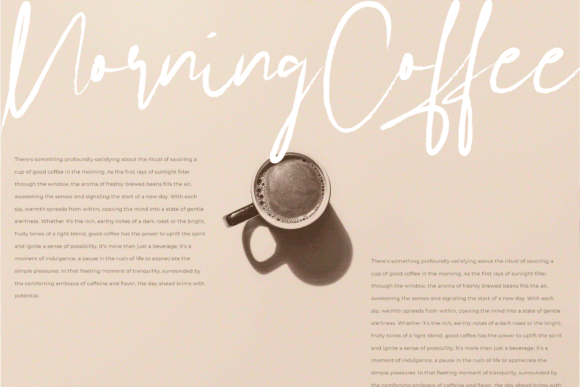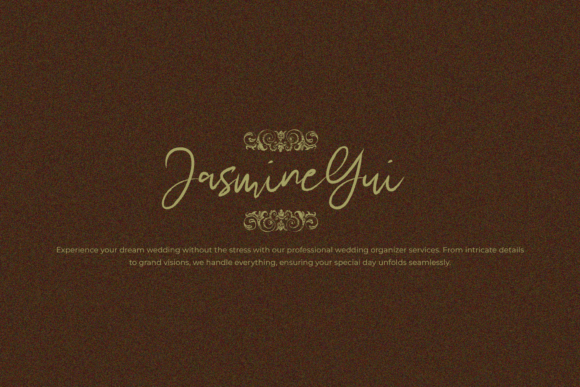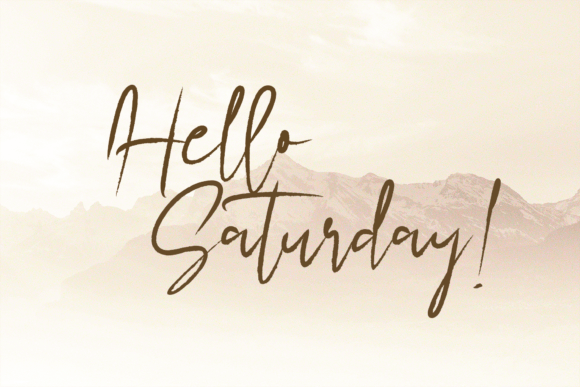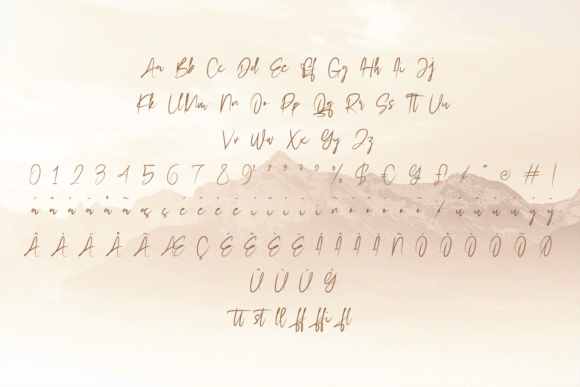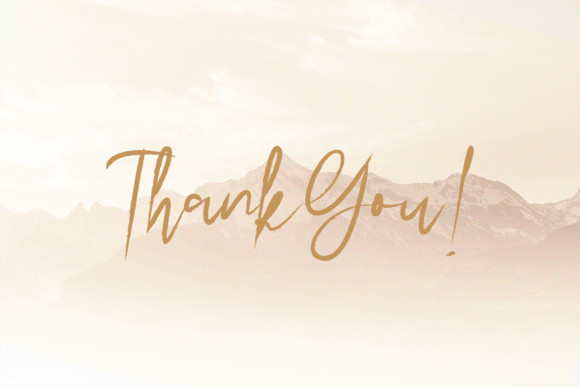
Unveiling the Elegance of Kalmoste Font
Imagine yourself brainstorming ideas for a creative project, the cursor blinking impatiently on your screen as you struggle to find the perfect font to match your vision. But then, it happens – you stumble upon Kalmoste Font, and everything changes. This unique brush signature script font is more than just a design element; it’s a game-changer that elevates your work to new heights.
What sets Kalmoste Font apart is its ability to seamlessly blend modernity with sophistication, creating a high-quality visual experience that’s hard to resist. Whether you’re working on a design project or simply looking for a stylish addition to your digital library, Kalmoste Font is a valuable resource that’s sure to spark creativity and inspire your next big idea.
Key Features of Kalmoste Font
- High-quality design for creative projects with a unique, modern aesthetic.
- Transparent background, making it ideal for use on a variety of design resources and backgrounds.
- Designed to be versatile, suitable for use in a range of creative projects, from digital art to print materials.
Honest Review: Kalmoste Font
I recently stumbled upon the Kalmoste Font, and I’m excited to share my thoughts on this design resource. As a designer, I’m always on the lookout for high-quality fonts that can elevate my creative projects.
One of the standout features of the Kalmoste Font is its sleek, modern design. The font’s clean lines and minimalistic style make it perfect for a variety of creative projects, from logos to brochures.
- ✨ High-quality design that’s perfect for modern projects
- ✨ Transparent background, making it easy to use with any design
- ⚠️ Limited character set, which may not be suitable for all projects
- ⚠️ Not as versatile as some other fonts on the market
Overall, I’m impressed with the Kalmoste Font. While it may not be perfect, it’s a solid design resource that can add a touch of sophistication to your creative projects. I’d definitely recommend it for designers looking for a modern, high-quality font.
Getting the Most Out of Kalmoste Font
For a high-quality design, use the Kalmoste Font with a transparent background to create a unique and creative project. This versatile font can be used in various design resources, making it a great addition to your collection. You can download it for free to get started on your next design project.
The Kalmoste Font is ideal for use in creative projects such as graphic design, digital art, and typography. Its high-quality design and transparent background make it a great choice for designers looking for a unique and stylish font.
Alternatives to Kalmoste Font
The Great Vibes Font is a high-quality, elegant script font perfect for creative projects that require a touch of sophistication. Its transparent background and delicate lines make it ideal for wedding invitations, logos, and other design elements. You can download Great Vibes Font for free, making it a valuable design resource for any project. Compared to Kalmoste Font, Great Vibes has a more refined and polished look, making it suitable for high-end creative projects.
The Pacifico Font is a beautiful, modern script font that is perfect for creative projects that require a relaxed, beachy vibe. Its transparent background and flowing lines make it ideal for branding, advertising, and other design elements. You can download Pacifico Font for free, making it a great design resource for any project. Compared to Kalmoste Font, Pacifico has a more laid-back and casual look, making it suitable for projects that require a relaxed atmosphere.